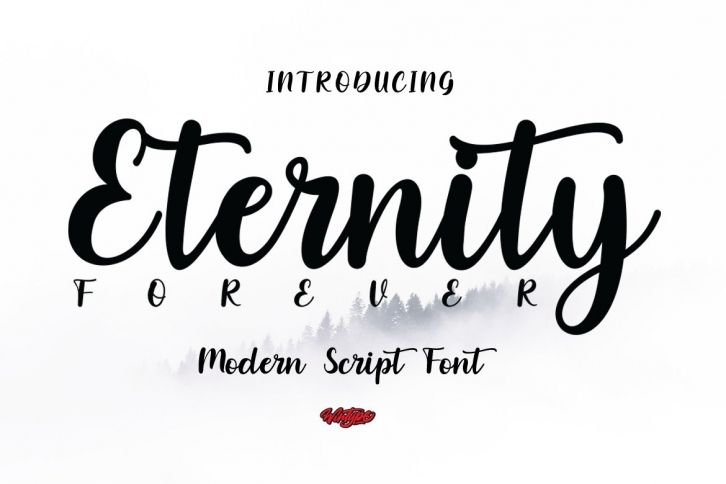
Eternity is a beautiful font that was designed by WinType. It's a great choice for designers and creatives who need such a font. It was released on April 22, 2021 and the file size is 21.9 MB. Eternity may give a more youthful, expressive and casual look to your project. It is a very beautiful, refined, elegant, and high-quality font.